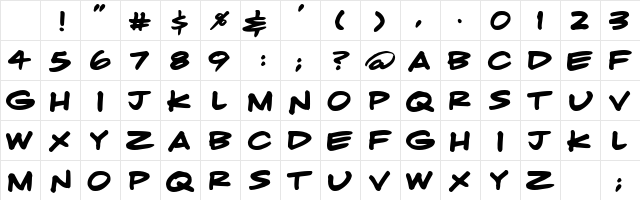
Complete LHF Fast Caps Regular glyph index. Displaying only characters natively supported by LHF Fast Caps Regular font.
LHF Fast Caps is a composed and adaptable typeface that performs quietly and consistently across a wide range of design contexts.
Who designed the LHF Fast Caps Regular font?
This font was published by Chuck Davis, Letterhead Fonts. Check the technical specs section for copyright and designer details.